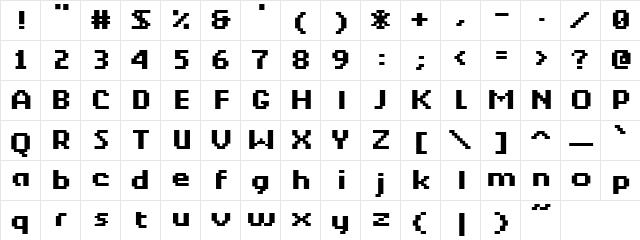
Berkelium Bitmap Regular
Design Context for Berkelium Bitmap Typeface
Berkelium Bitmap is rooted in pixel-grid construction, making it a natural fit for game UI, retro computing aesthetics, and digital nostalgia projects.
Well-suited to indie game interfaces, retro computing aesthetics, and pixel art-adjacent design work.
Pro Tip: Use Berkelium Bitmap at sizes that align with its pixel grid for the sharpest rendering — scaling to non-integer multiples can introduce unwanted blur.